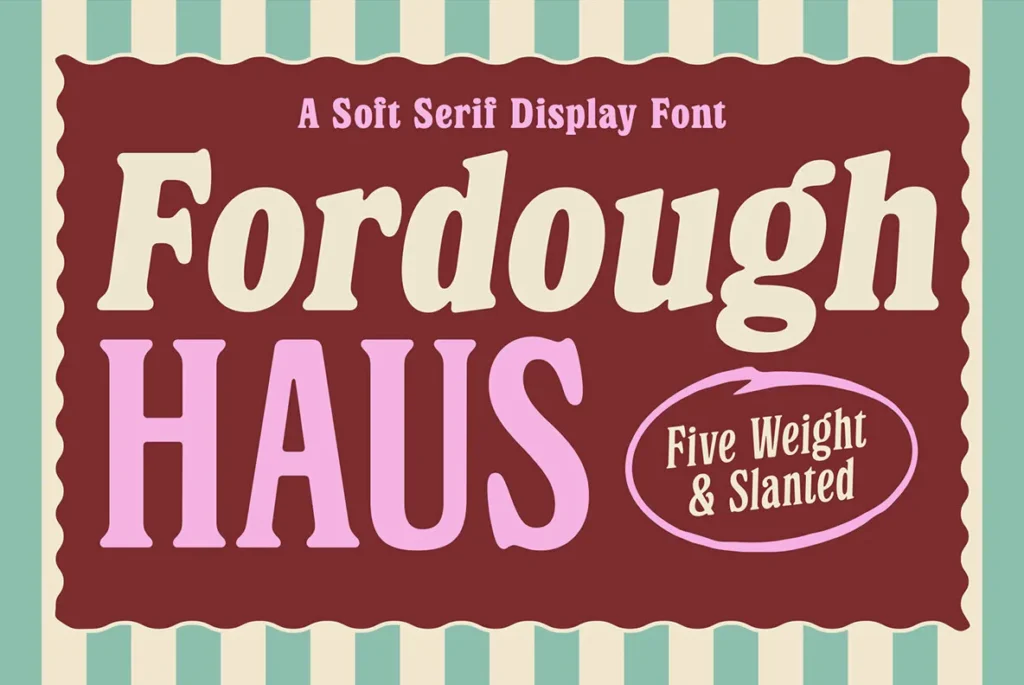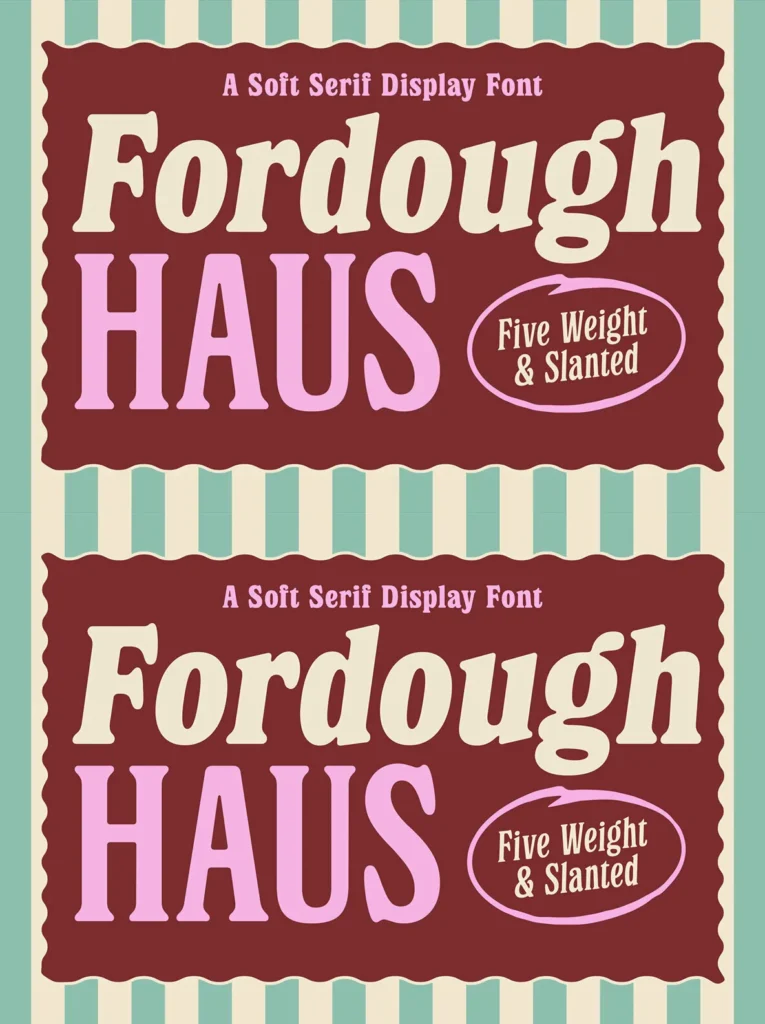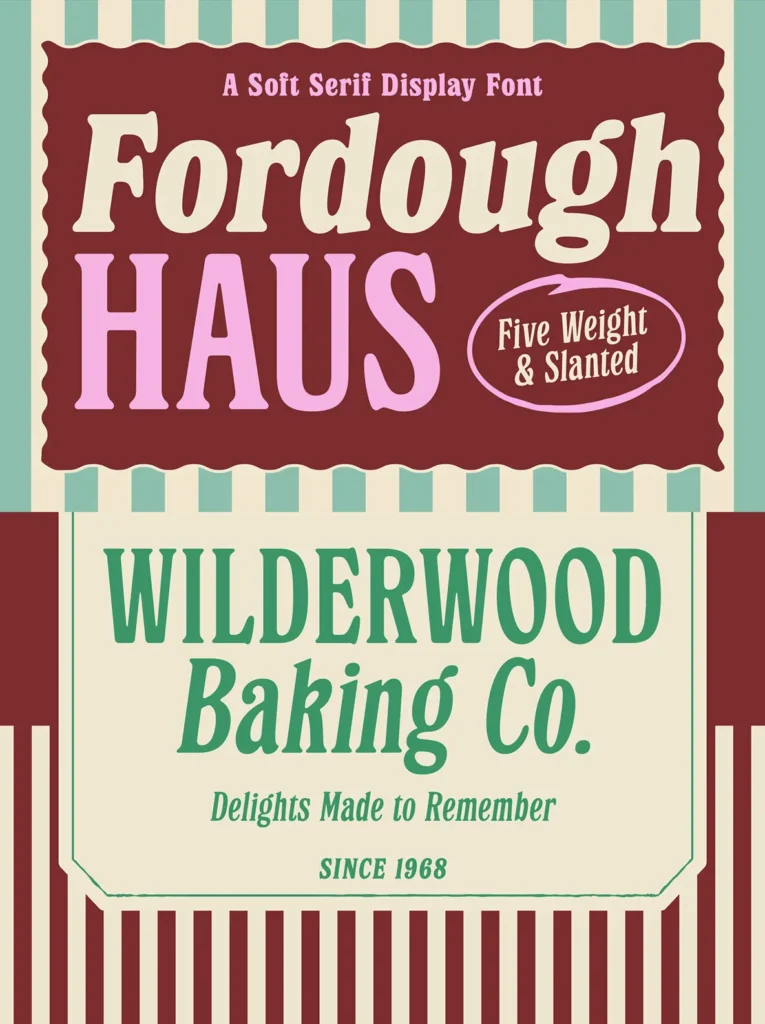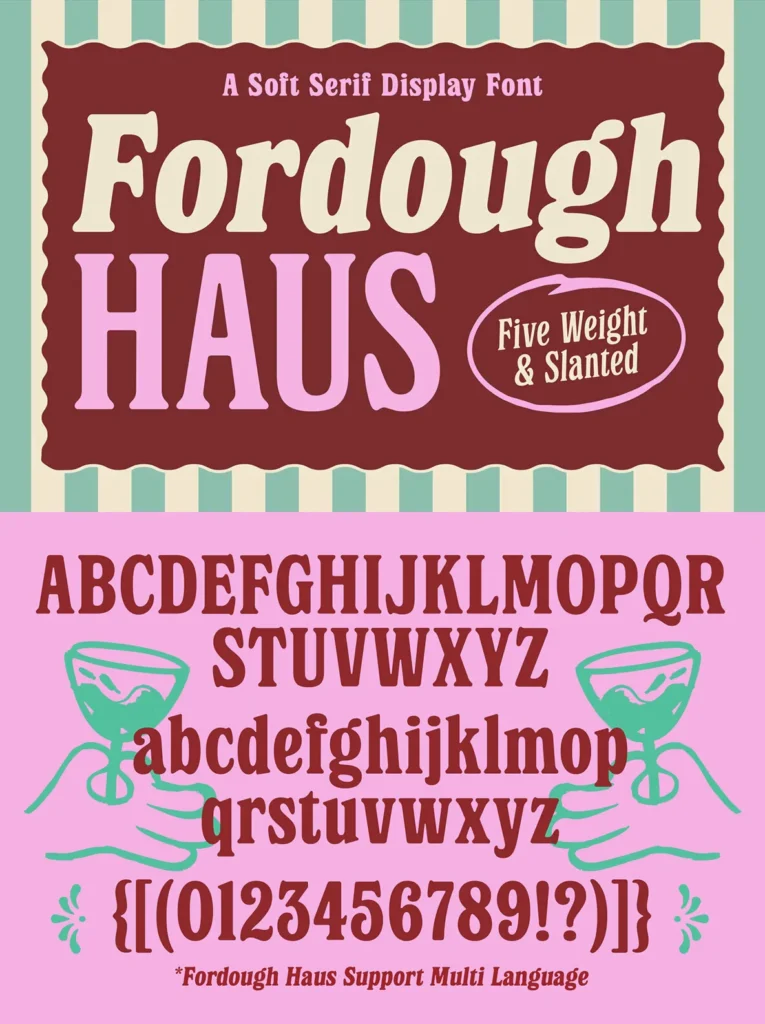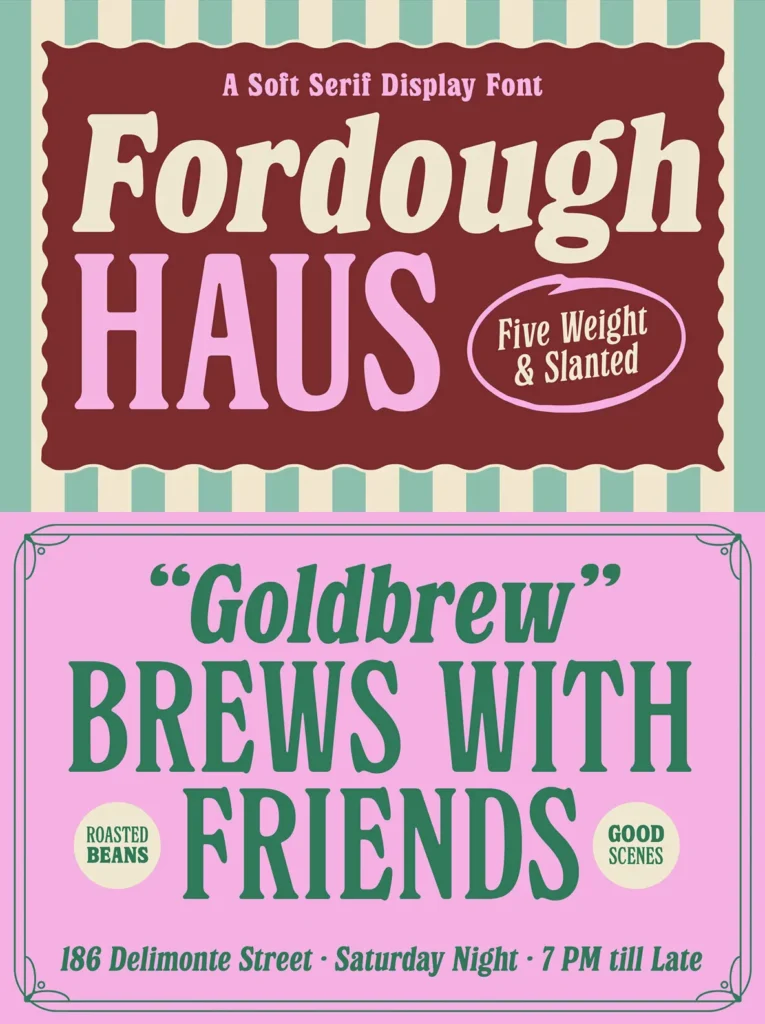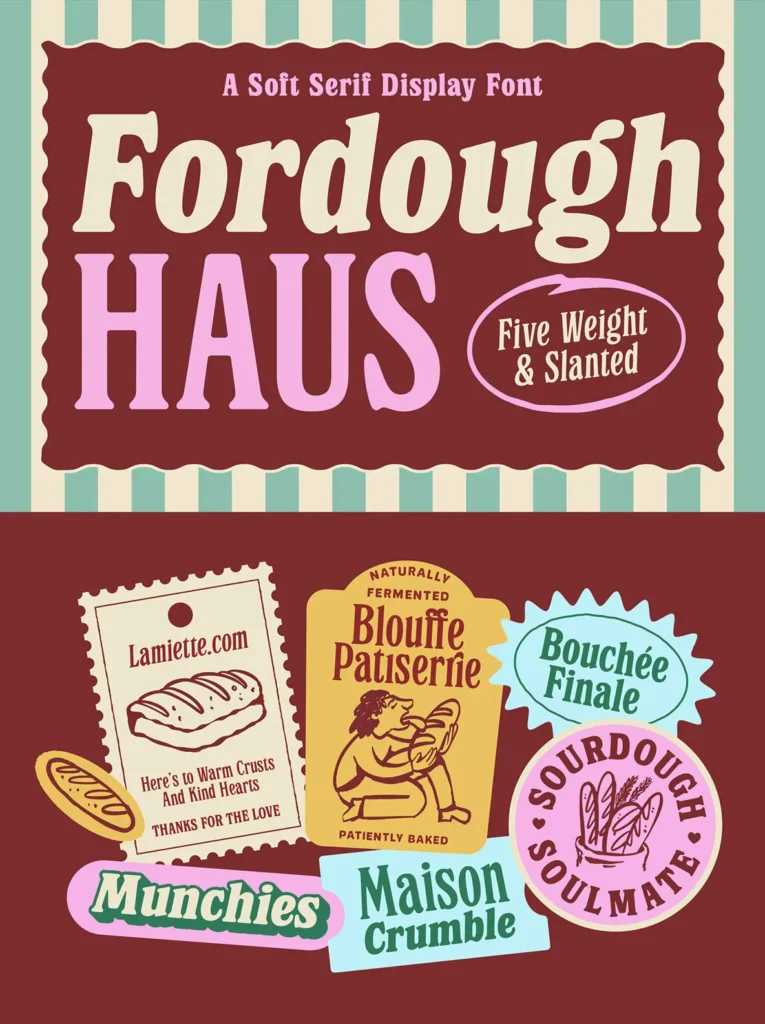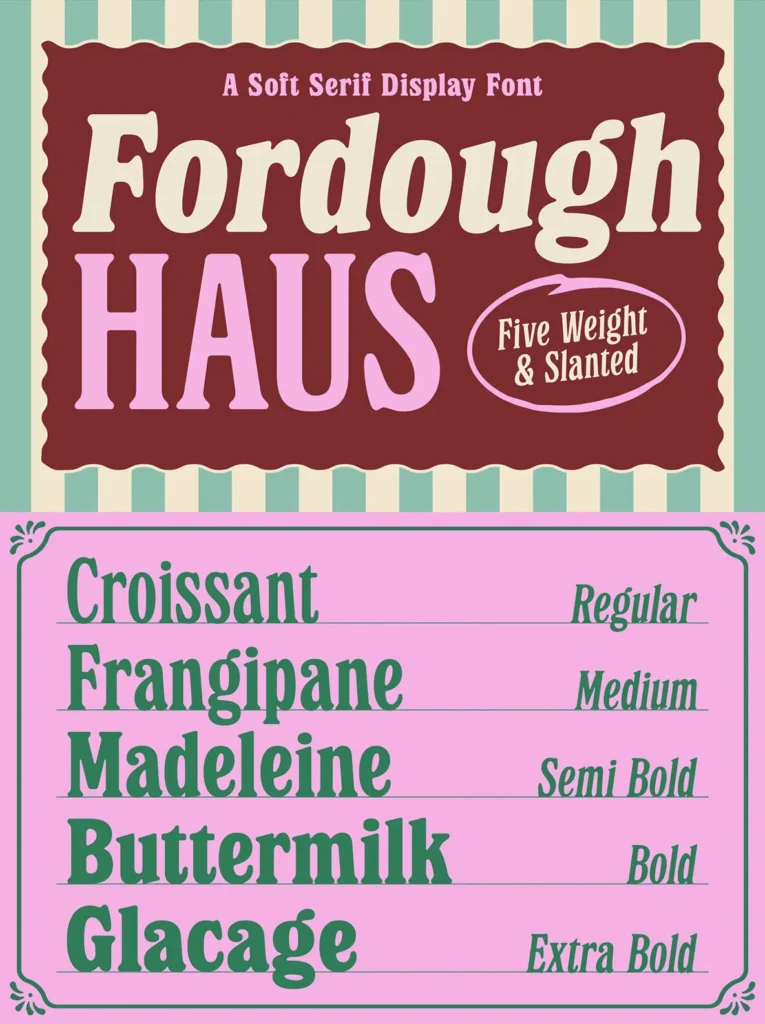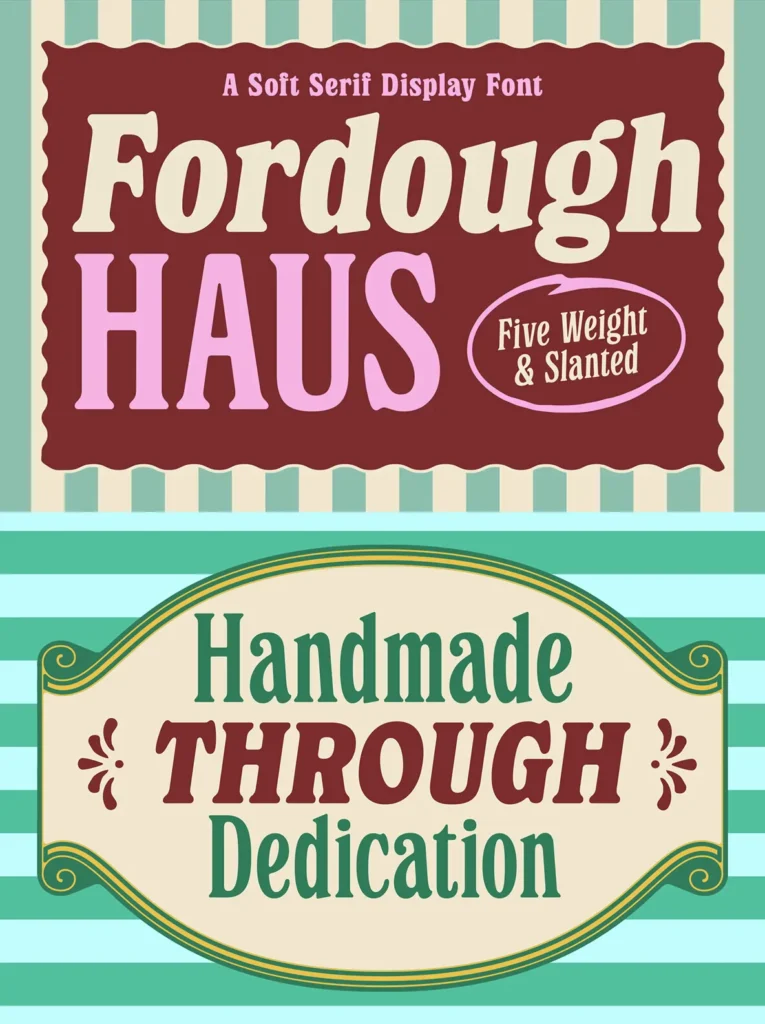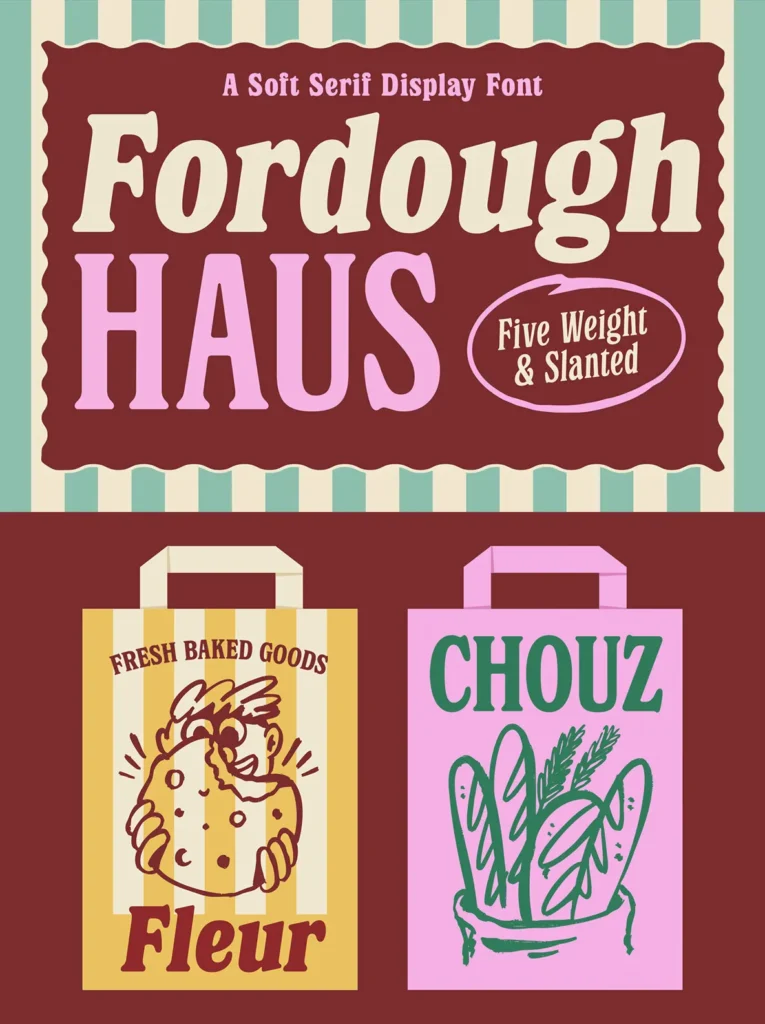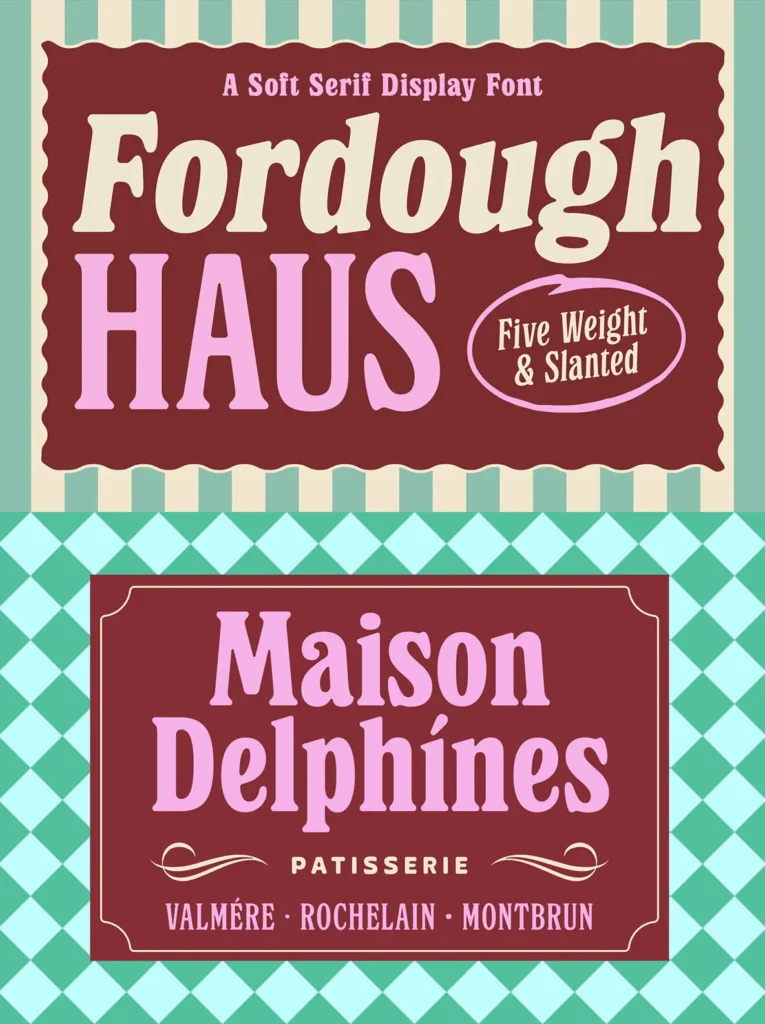
Fordough Haus: A Sweet Serif for Vintage Branding
Fordough Haus is a delightful serif designed to infuse charm into vintage bakery branding, café logos, and editorial projects. This font offers a fully equipped character set, perfect for menu posters and packaging labels that seek a distinctive touch.
Available in five weights and slanted styles for versatile design options.
Promises a playful and engaging aesthetic.